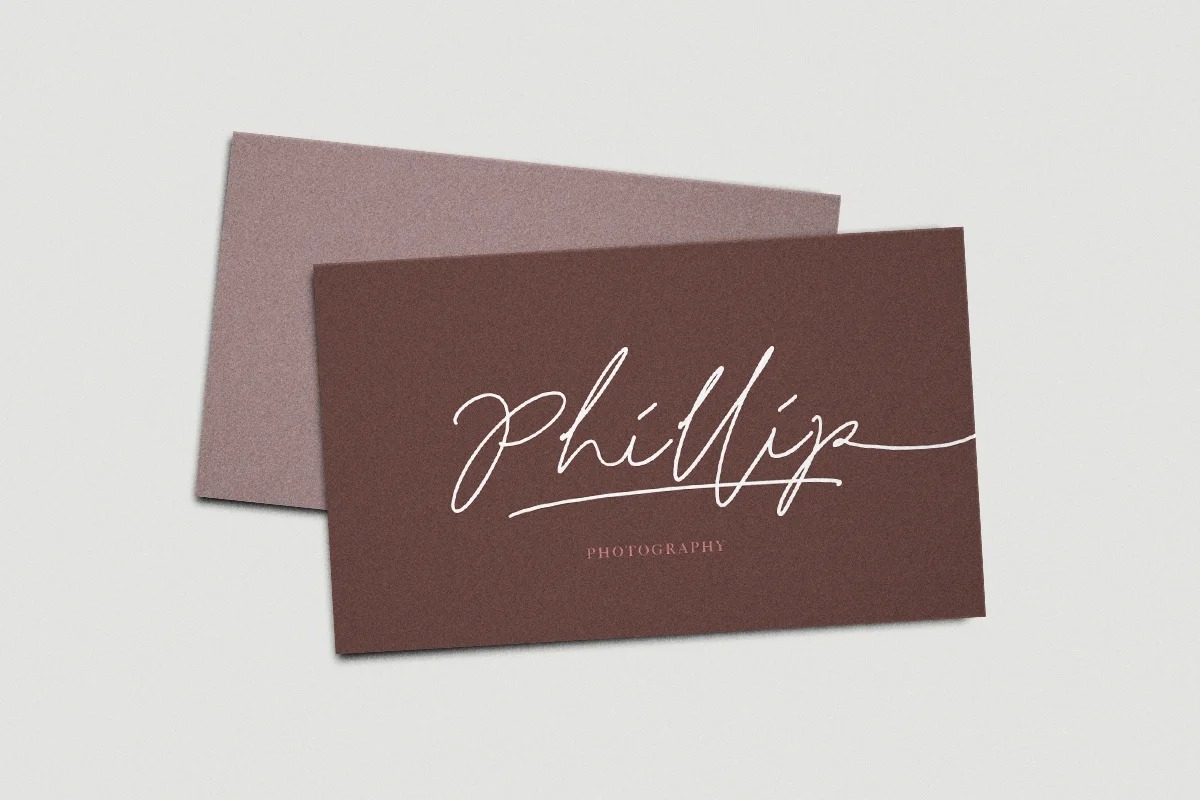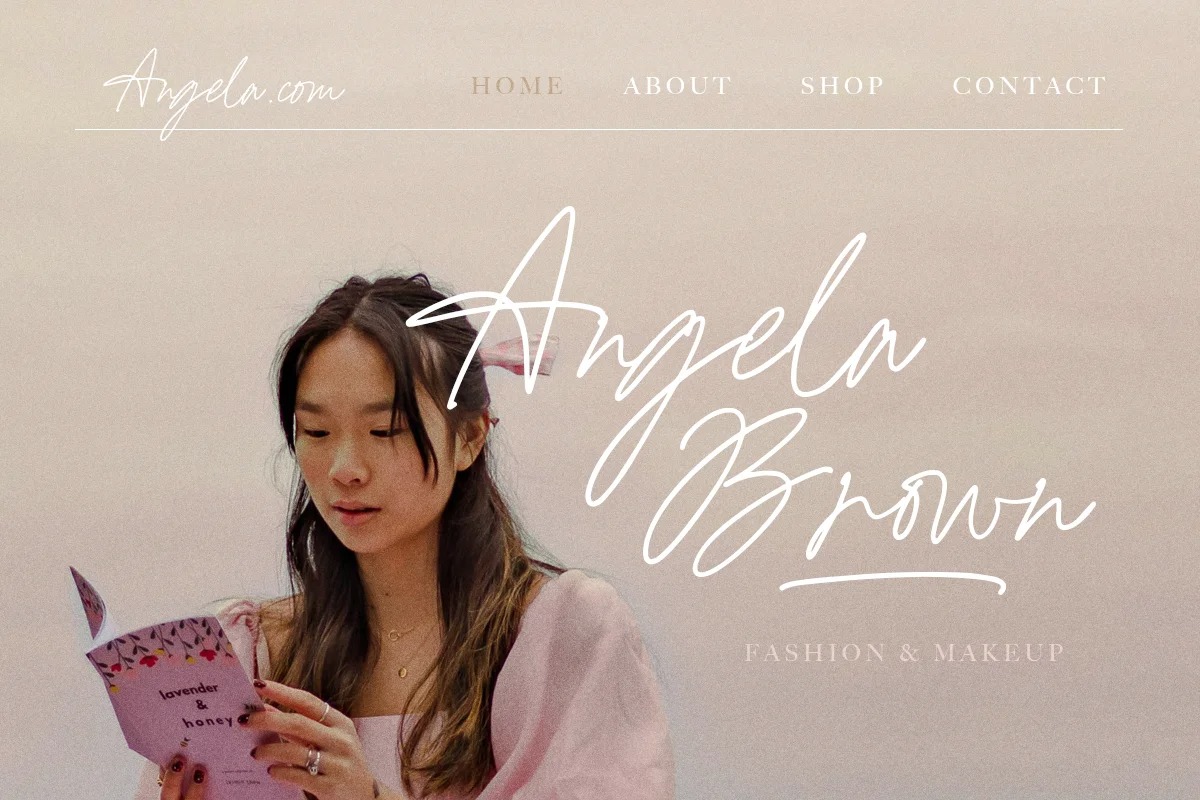
Merry Brook Font
Merry Brook Handwritten Font
This is a handwritten signature typeface coming with more than 350 stylistic ligatures. The stylistic alternate, ligatures and the tick and thin stroke make this font looks a real hand writing instead of typing a font. This type of font perfectly made to be applied especially in logo, and the other various formal forms such as invitations, labels, logos, magazines, books, greeting / wedding cards, packaging, fashion, make up, stationery, novels, labels or any type of advertising purpose.